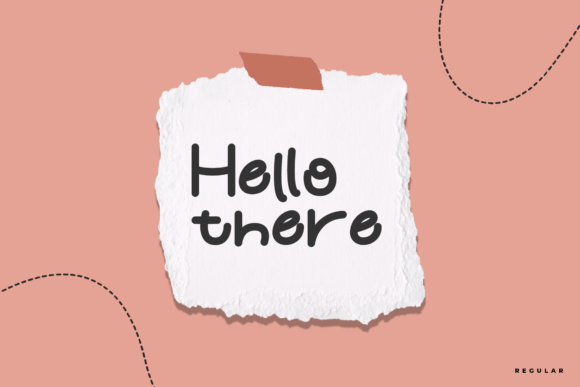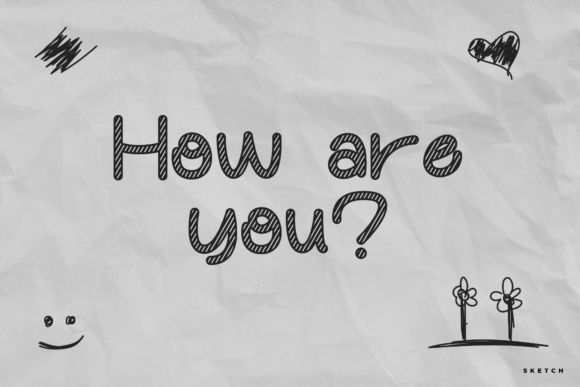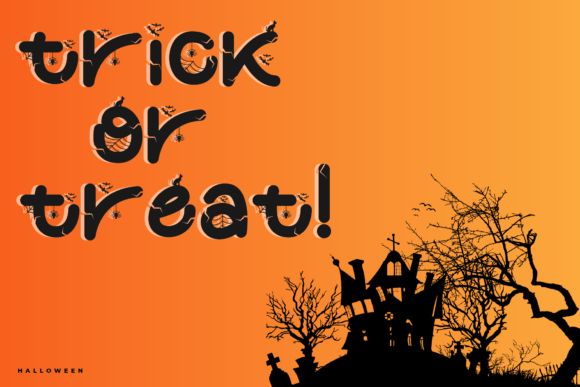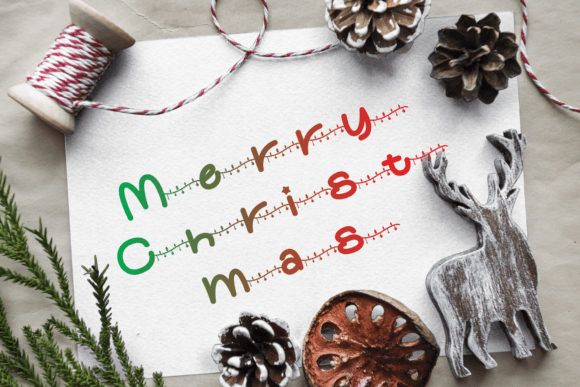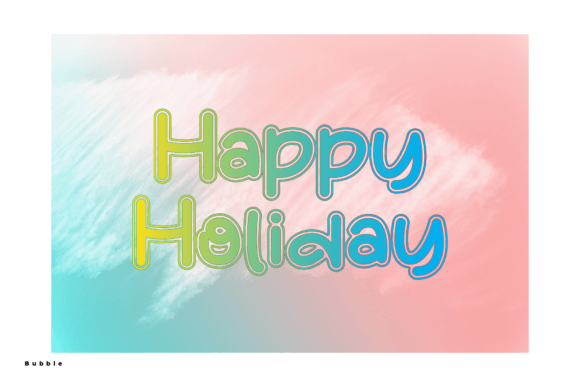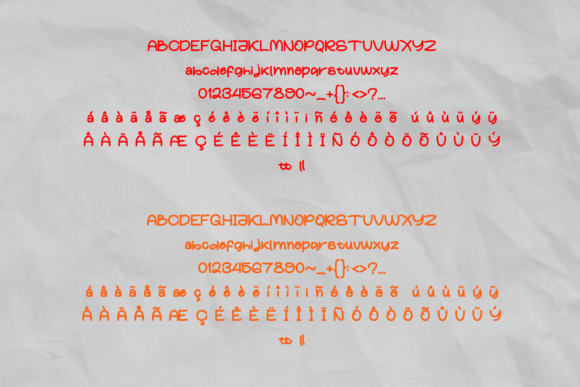
Introduction to Partty Font
Have you ever spent hours pouring your heart and soul into a creative project, only to feel like it’s missing that one special something? Maybe you’ve been scrolling through social media, searching for the perfect font to elevate your post or design, and nothing seems to stand out. That’s where the Partty Font comes in – a fun and playful display font that’s sure to bring your creative projects to life.
As a valuable resource for designers, the Partty Font offers a unique combination of style and versatility. With its high-quality design and transparent background, it’s the perfect addition to any creative project. Whether you’re working on a social media post, a craft, or a merchandise design, the Partty Font is sure to add a touch of fun and personality to your work.
Key Features of Partty Font
- High-quality design resource for creative projects, offering a unique and playful style.
- Features a transparent background, allowing for seamless integration into various design applications.
- Designed with a bold and vibrant aesthetic, making it perfect for use in party invitations, social media graphics, and other celebratory designs.
Honest Review: Partty Font
As a designer, I’m always on the lookout for high-quality design resources to elevate my creative projects. Recently, I had the chance to work with the Partty Font, and I must say, it’s been a game-changer.
- High-quality design: The Partty Font boasts clean, modern lines that make it perfect for a wide range of creative projects.
- Transparent background: The transparent background option allows for seamless integration with any design element.
- Limited font styles: While the Partty Font is well-designed, it’s limited to a single style, which may not be ideal for projects requiring multiple font variations.
- No bold or italic options: Unfortunately, the font doesn’t offer bold or italic variations, which can limit its use in certain design contexts.
Overall, the Partty Font is a solid addition to any design resource collection. While it may have some limitations, its high-quality design and transparent background make it a great choice for a wide range of creative projects. With a little creativity, you can work around its limitations and achieve some amazing design results.
Partty Font is a high-quality design resource ideal for creative projects that require a fun and playful touch. With a transparent background, this font is perfect for adding visual interest to your designs.
Tips for Getting the Most Out of Partty Font
To get the most out of Partty Font, experiment with different font sizes, colors, and combinations to create unique and eye-catching designs. Don’t be afraid to push the boundaries and try new things!
Partty Font is perfect for social media graphics, party invitations, and other creative projects that require a fun and playful touch. Its high-quality design and transparent background make it a valuable addition to any design resource library.